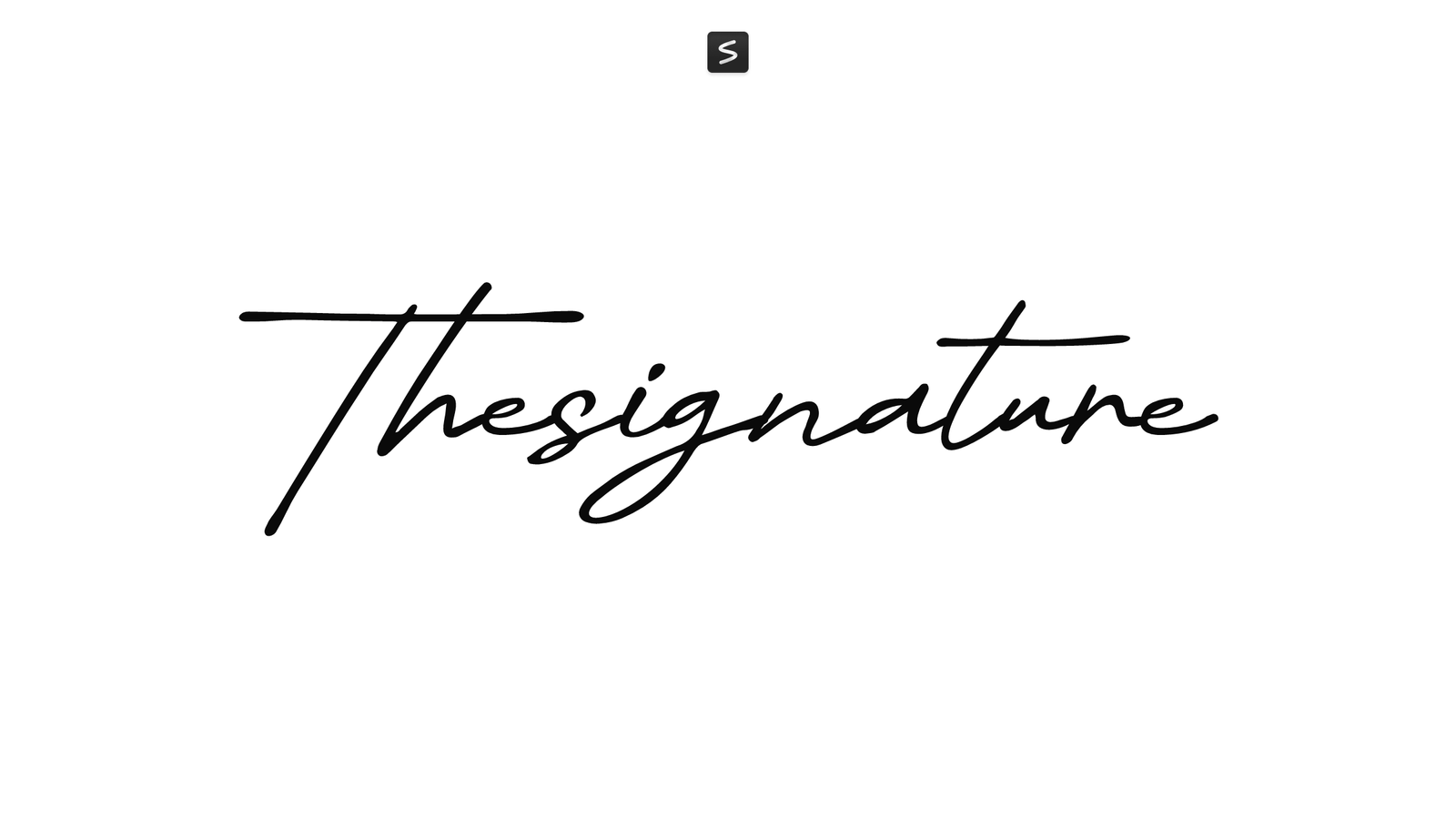
Thesignature is a handwriting script font created by Khurasan that mimics the flow and character of genuine pen strokes. It balances casual, natural letterforms with enough refinement to remain readable at different sizes, capturing that personal touch you’d find in someone’s actual handwriting.
The font has fluid connections between letters and a relaxed rhythm that feels authentic without looking overly formal or stiff. Its curves and natural variations give designs a human quality, making it suitable for branding, invitations, editorial layouts, greeting cards, or any project where a personal, approachable voice matters.
Thesignature works well when you need warmth and character in your typography. It’s straightforward enough to pair with supporting sans-serif fonts, and distinct enough to stand alone in headlines or logotypes.